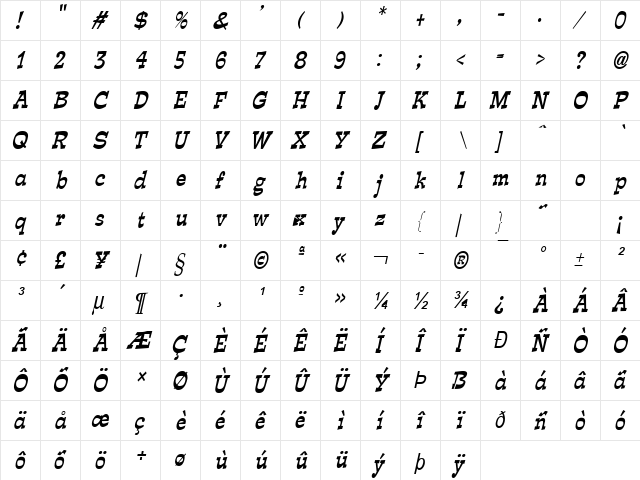
Expose Thin Condensed BoldItalic
Design Context for Expose Thin Condensed Typeface
Expose Thin Condensed takes a measured approach to typography — its balanced proportions and neutral character make it a reliable workhorse for both digital and print work. Its italic angle brings a sense of urgency and motion to the letterforms. Its bold stroke weight gives it real presence on the page. The condensed width makes it efficient for tight spaces without sacrificing legibility.
Pro Tip: Use Expose Thin Condensed for emphasis, pull quotes, and subheadings where its slanted energy can add rhythm to the layout.